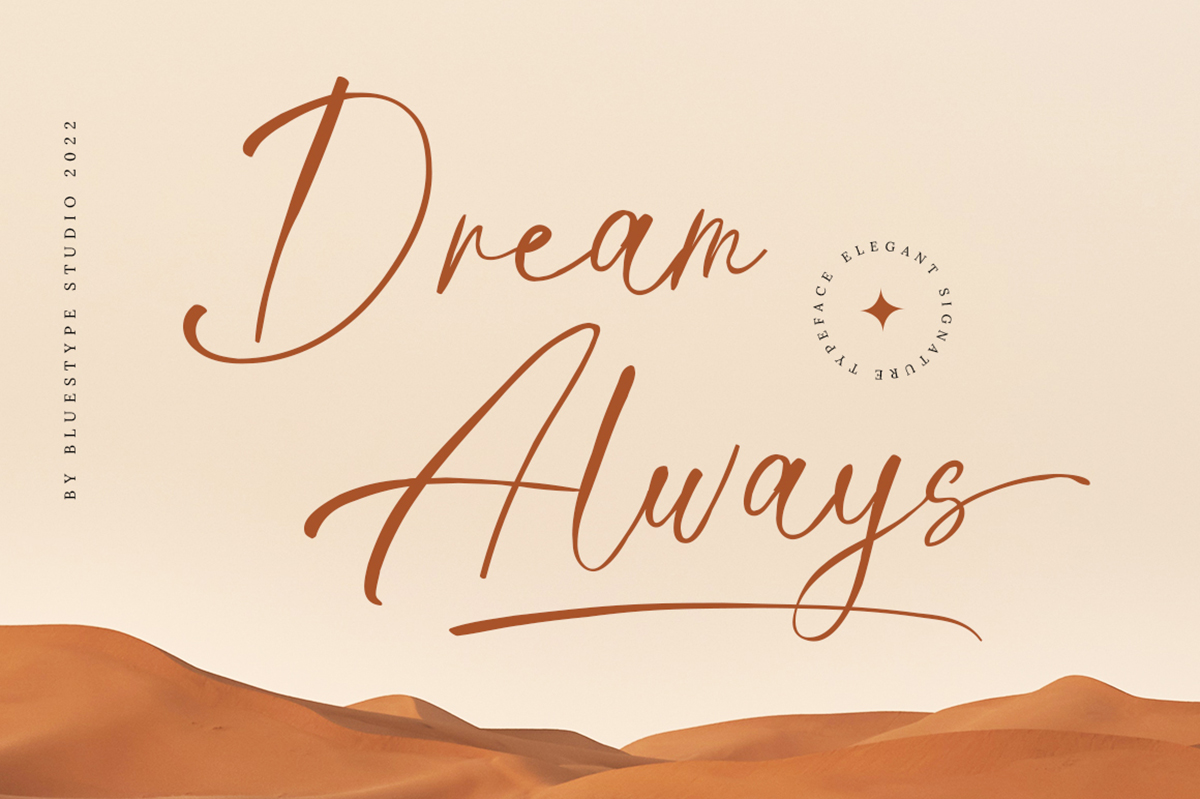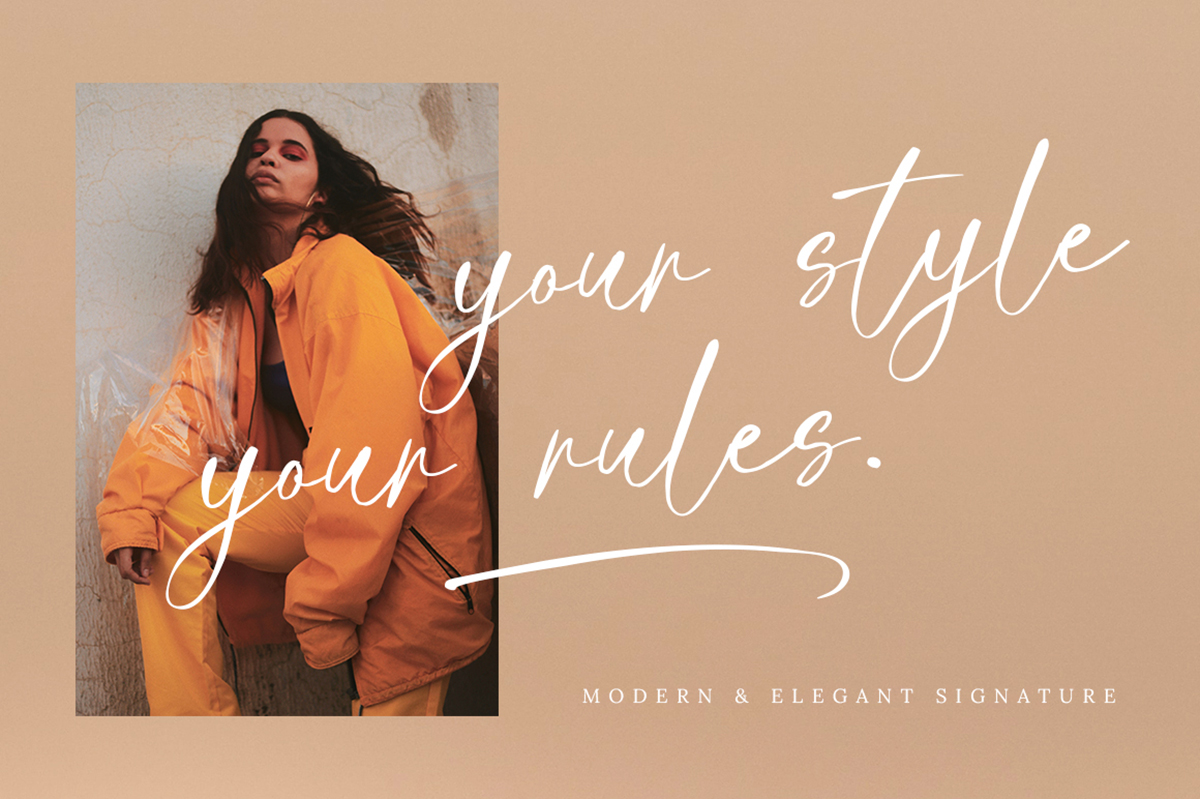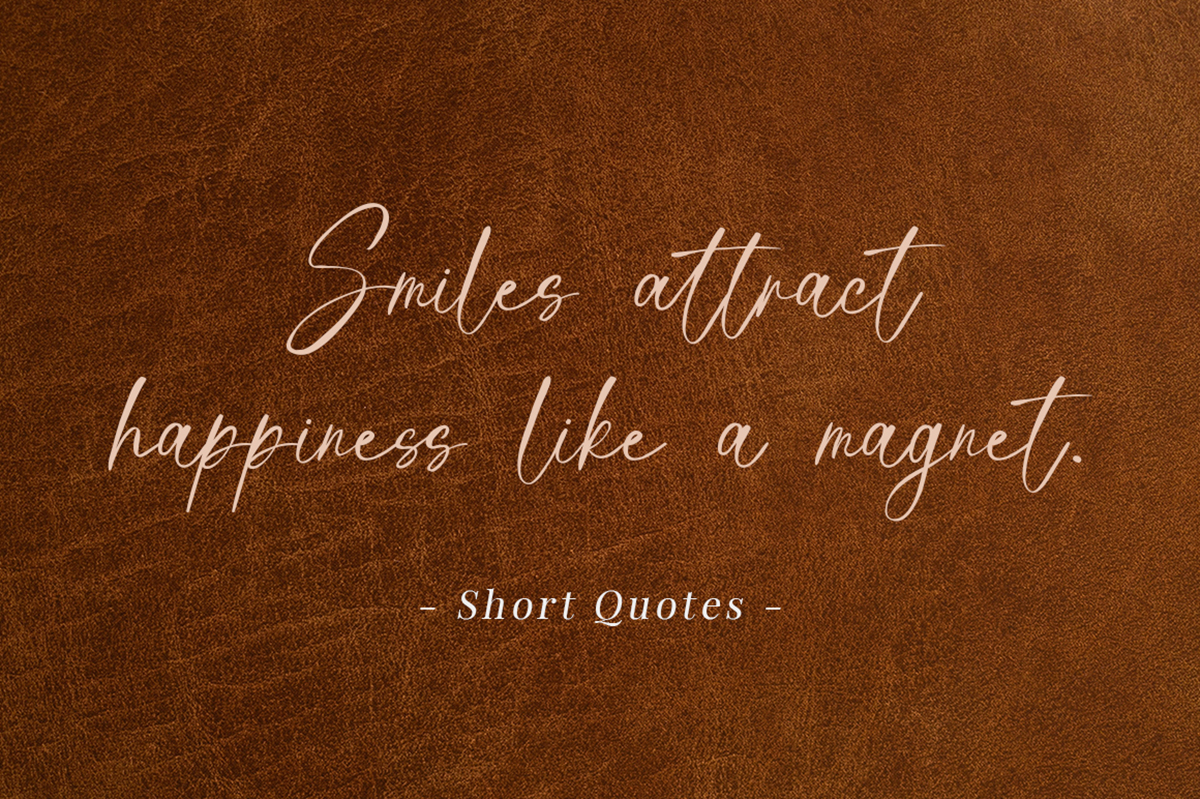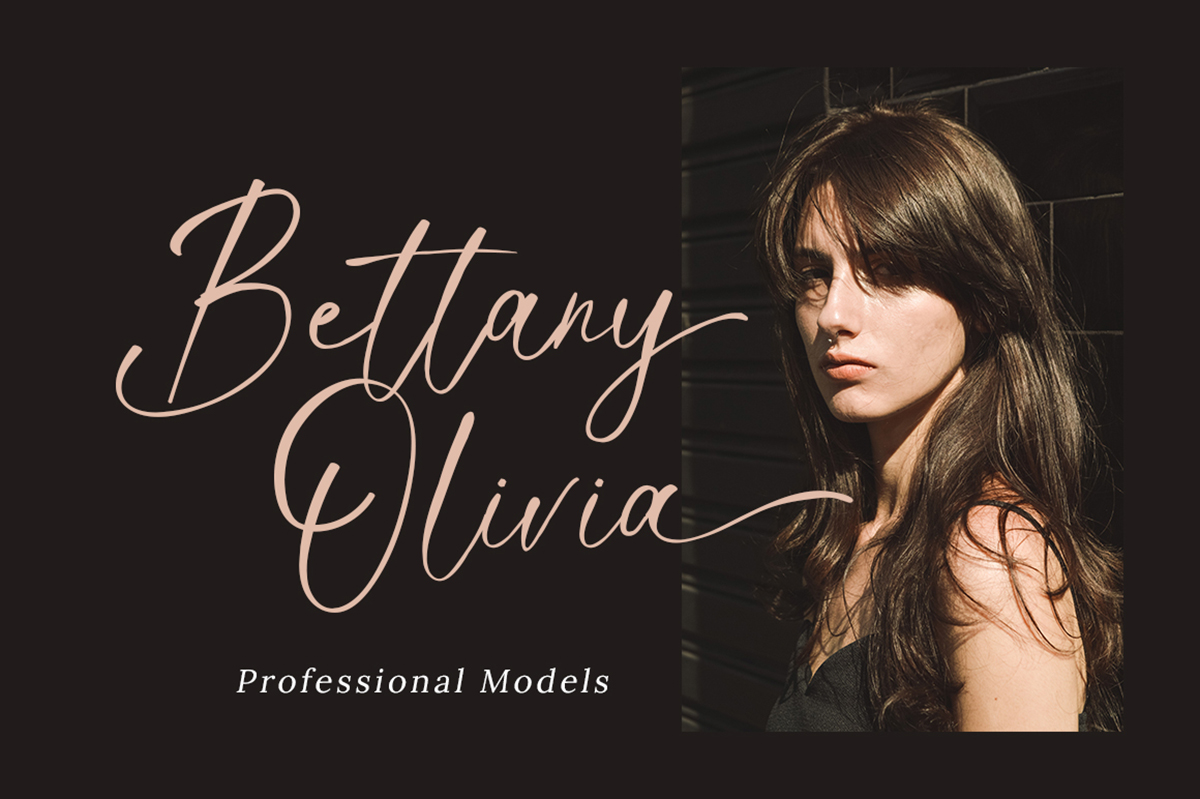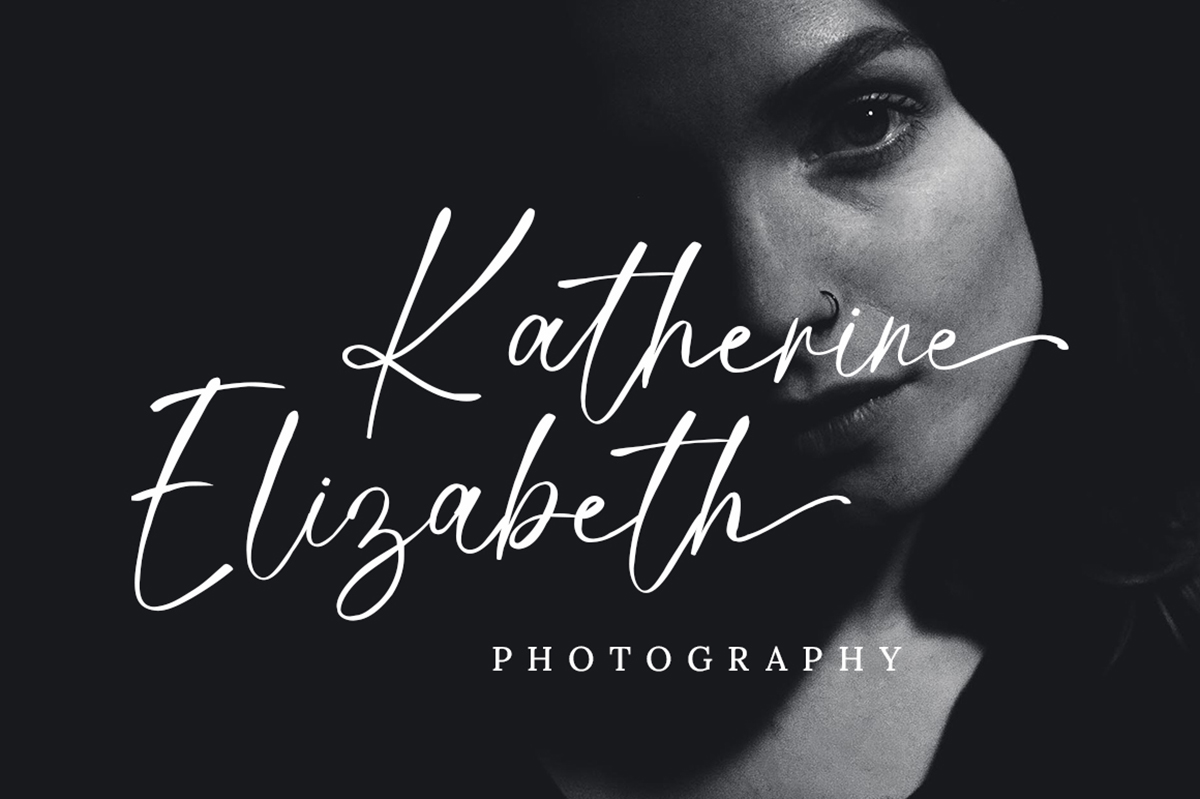
Dream Always Free Font
Magica Chesse Free Font is a beautiful handwritten font that simulates detailed brush writing and is very suitable for creating various design projects that require a scripted font. These can be posters, invitations, cards, branding, flyer prints, and more. If you wish to access more features and use them for commercial work please buy the full version.
Author: Bluestype Studio